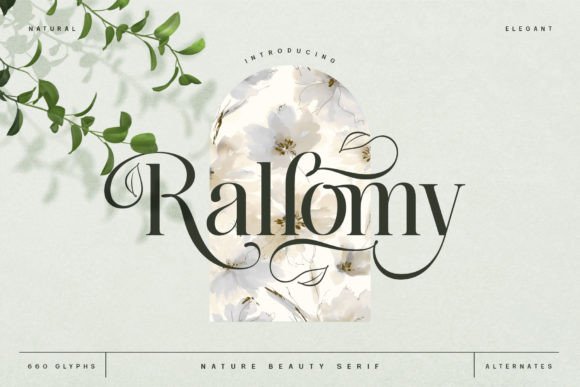
Introducing Rallomy Font, the epitome of nature's beauty captured in a serif font. Created by Alit Design, this font is the perfect choice for anyone seeking to infuse their design projects with the essence of nature.
With its dynamic alternating swash, Rallomy Font adds a touch of elegance and sophistication to any text. The leaf symbol incorporated within the swash symbolizes growth, vitality, and the endless beauty found in the natural world. This unique feature sets Rallomy Font apart from other serif fonts, making it a truly captivating choice.
One of the standout features of Rallomy Font is its ligature system, which ensures a seamless combination of characters. This means that your text will flow effortlessly, enhancing readability and making a lasting impression on your audience. Whether you're designing a logo, creating a poster, or crafting a stunning website, Rallomy Font will elevate your project to new heights.
Imagine the impact of using Rallomy Font on your next branding project. Its timeless elegance and natural charm will instantly captivate your audience, leaving a lasting impression that sets your brand apart. Whether you're aiming to convey a sense of luxury, a connection to nature, or a blend of both, Rallomy Font is the perfect tool to achieve your vision.
Not only does Rallomy Font provide a visually appealing experience, but it also offers a range of practical benefits. Its versatility allows it to be used across various design mediums, from print to digital. This means that you can maintain a consistent brand identity and create a cohesive look and feel across all your marketing materials.
In conclusion, Rallomy Font is not just another serif font – it's a gateway to nature's beauty and a powerful tool for design projects. With its dynamic swash and harmonious ligature system, it effortlessly combines elegance and readability. Stand out from the crowd and enchant your audience with Rallomy Font – the Best Font For Letter that will breathe life into your designs.